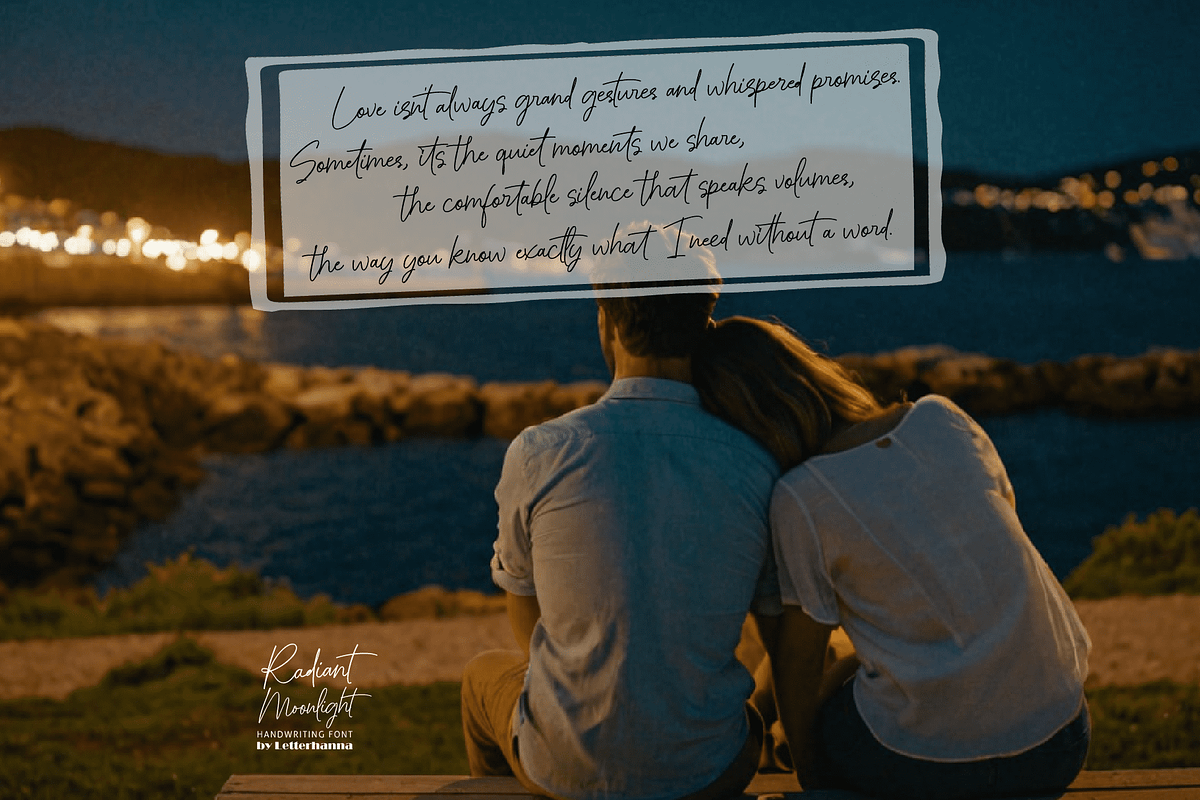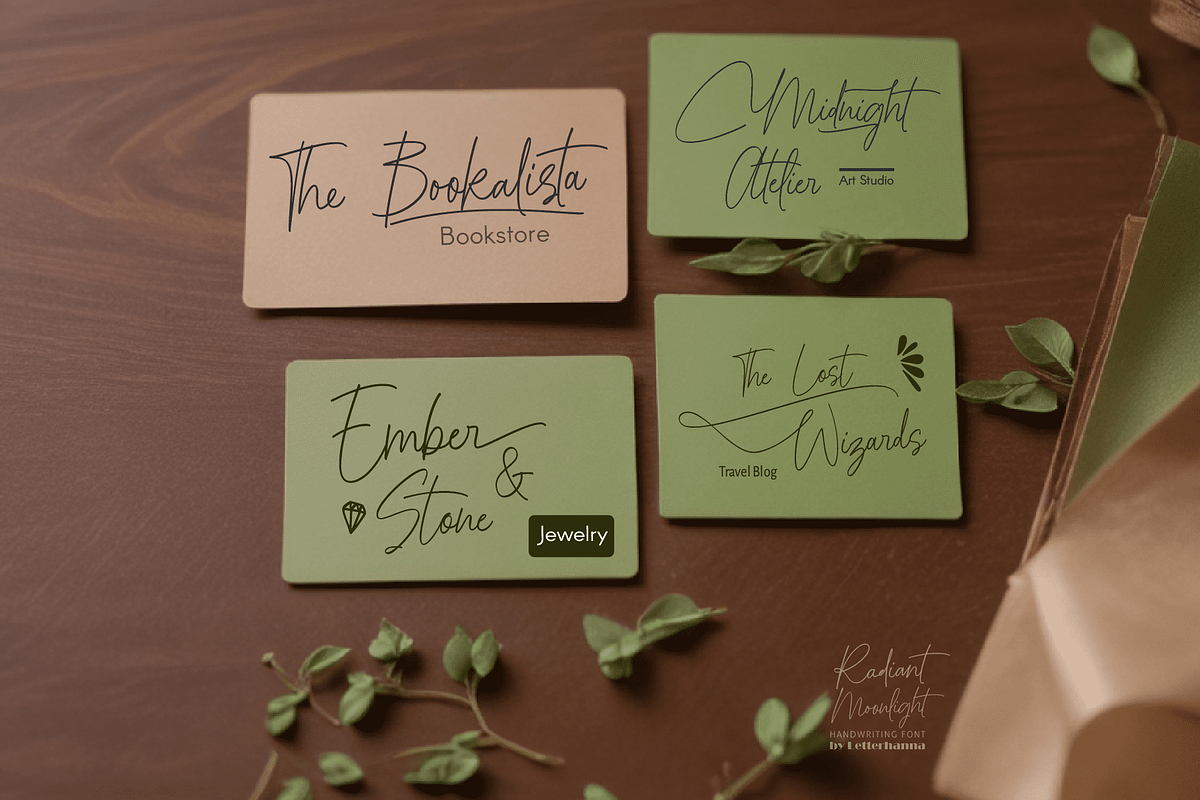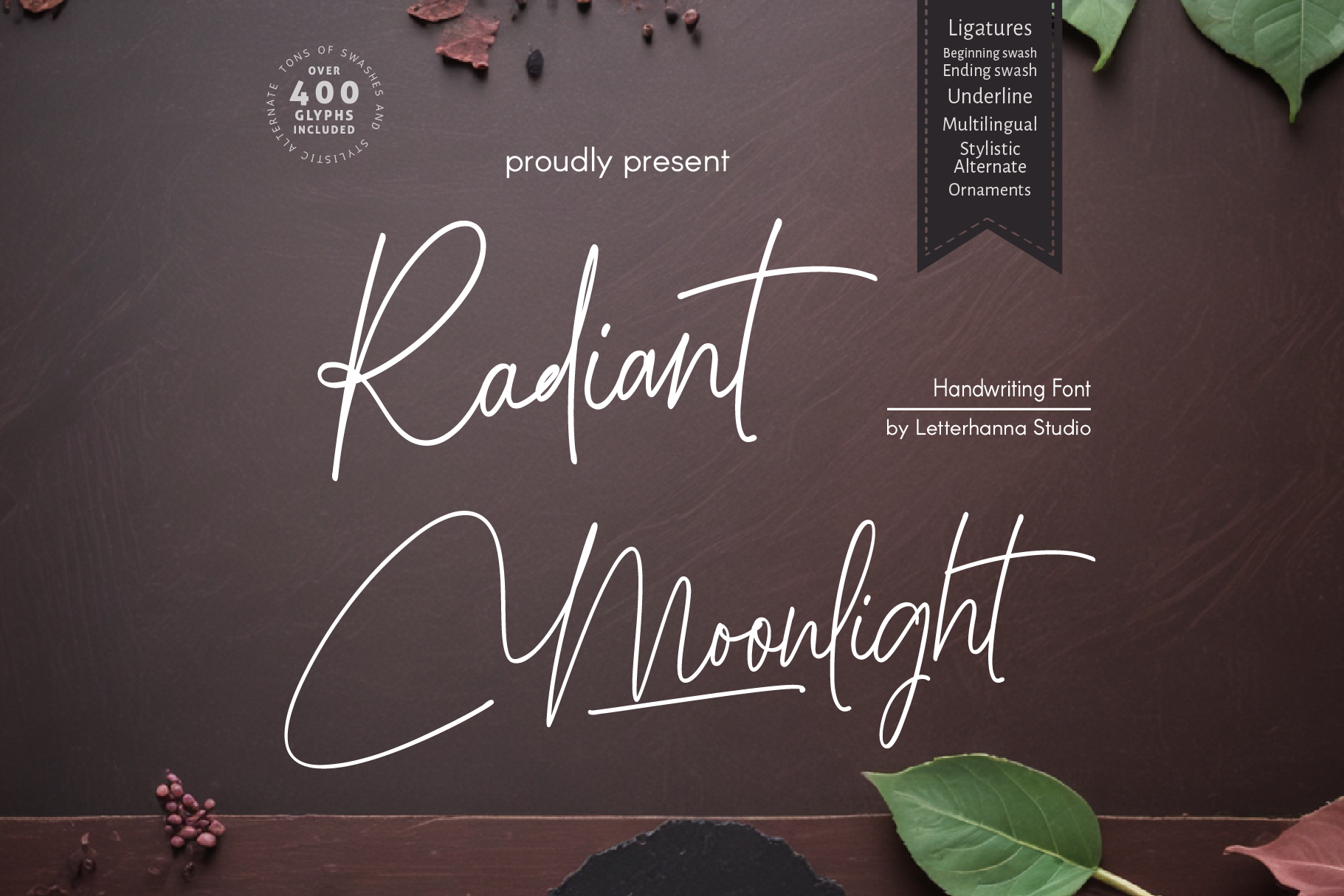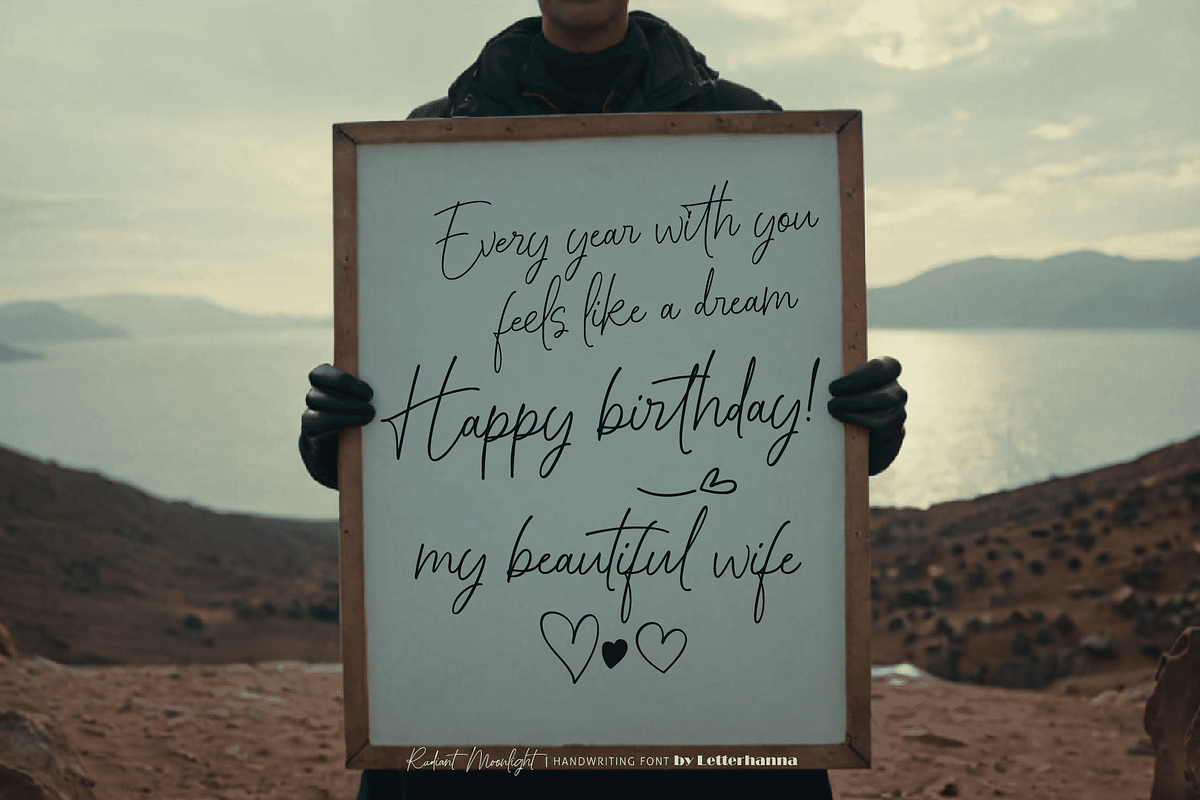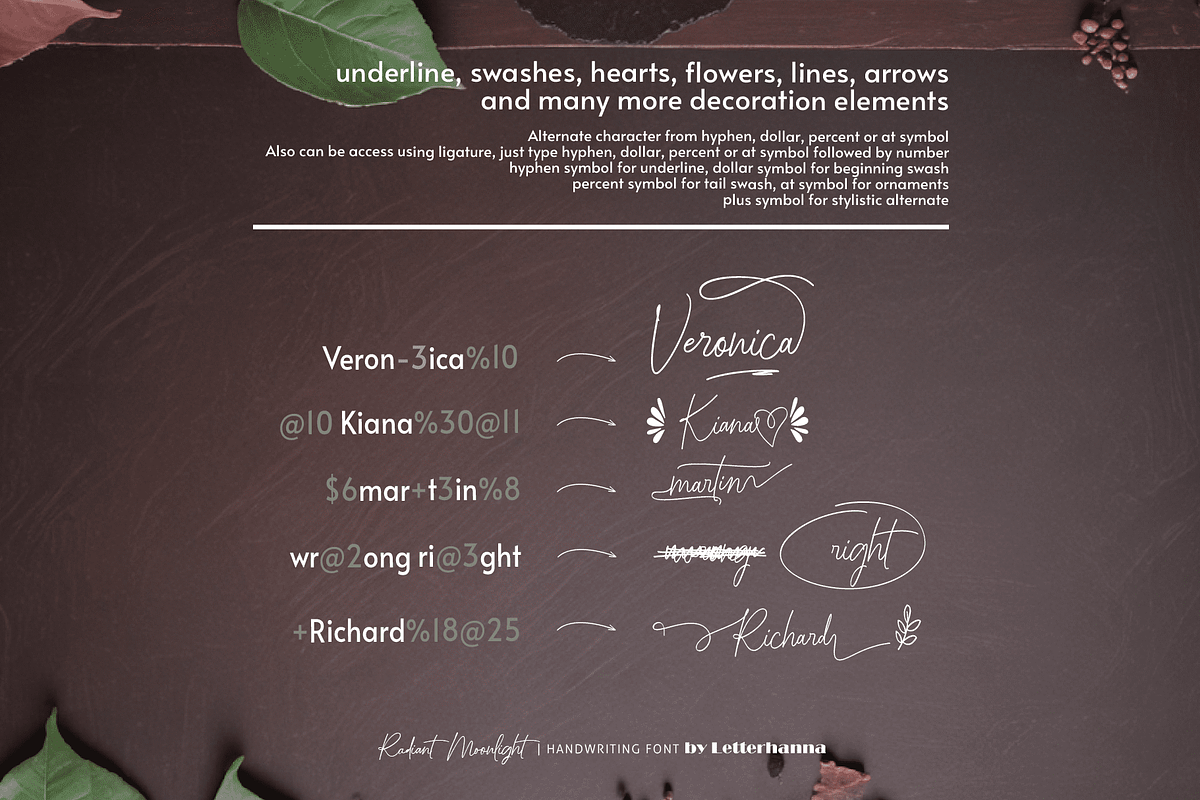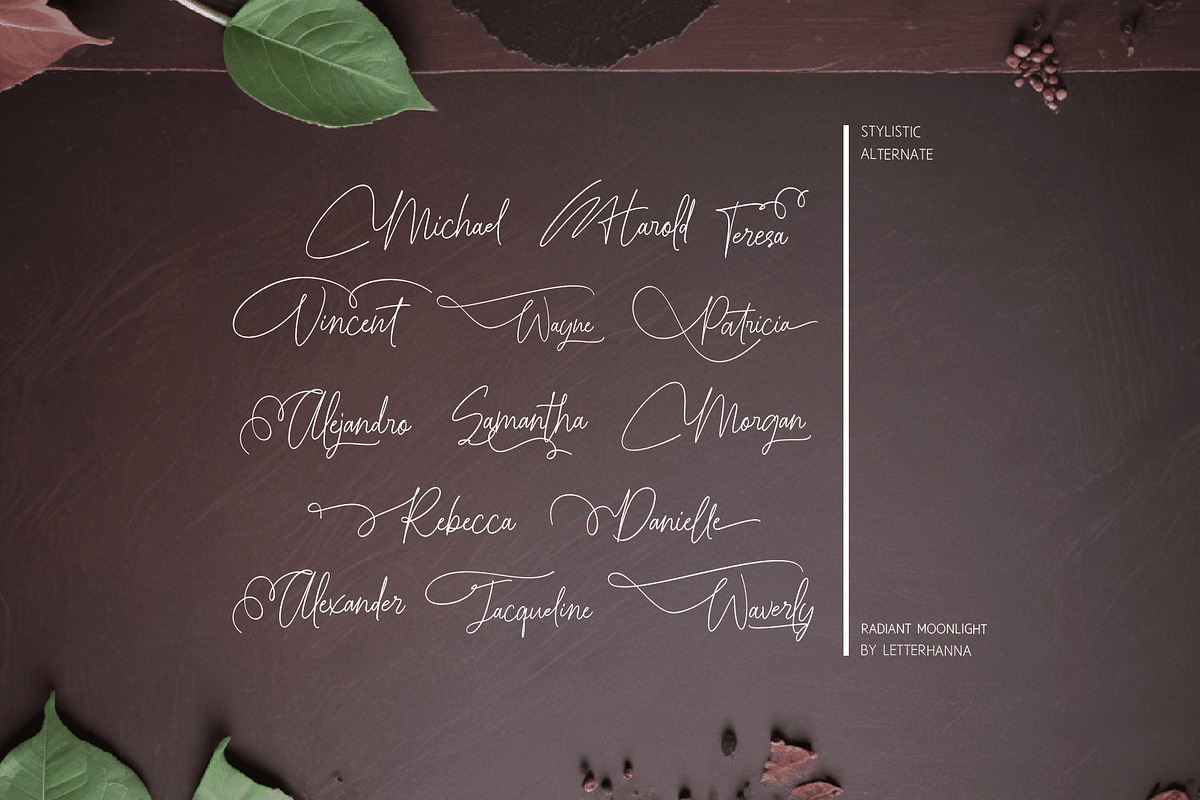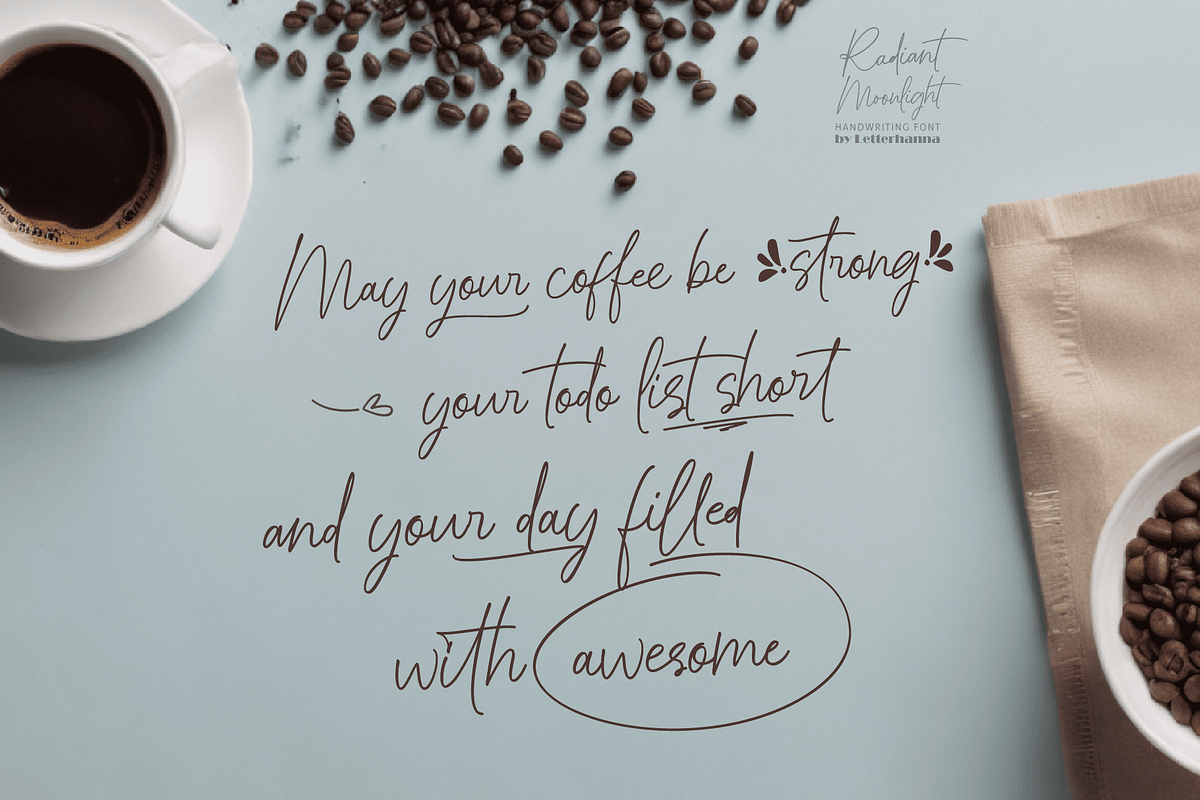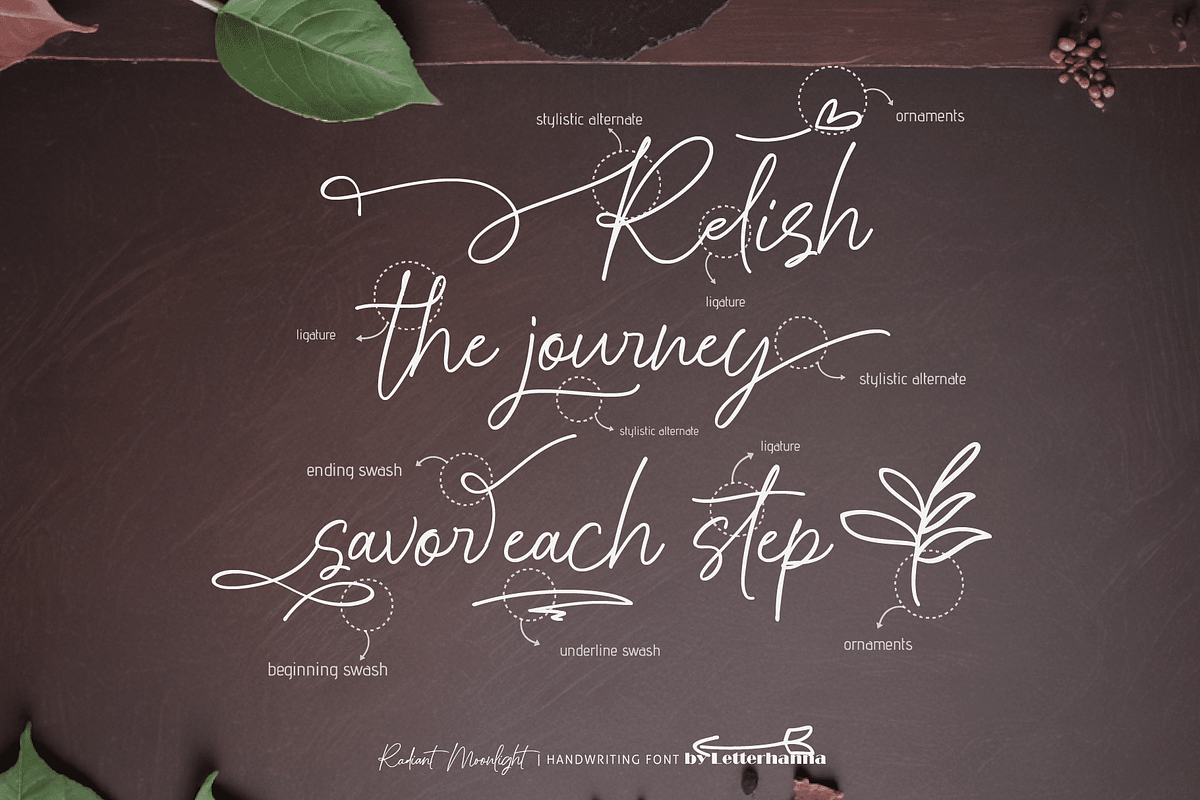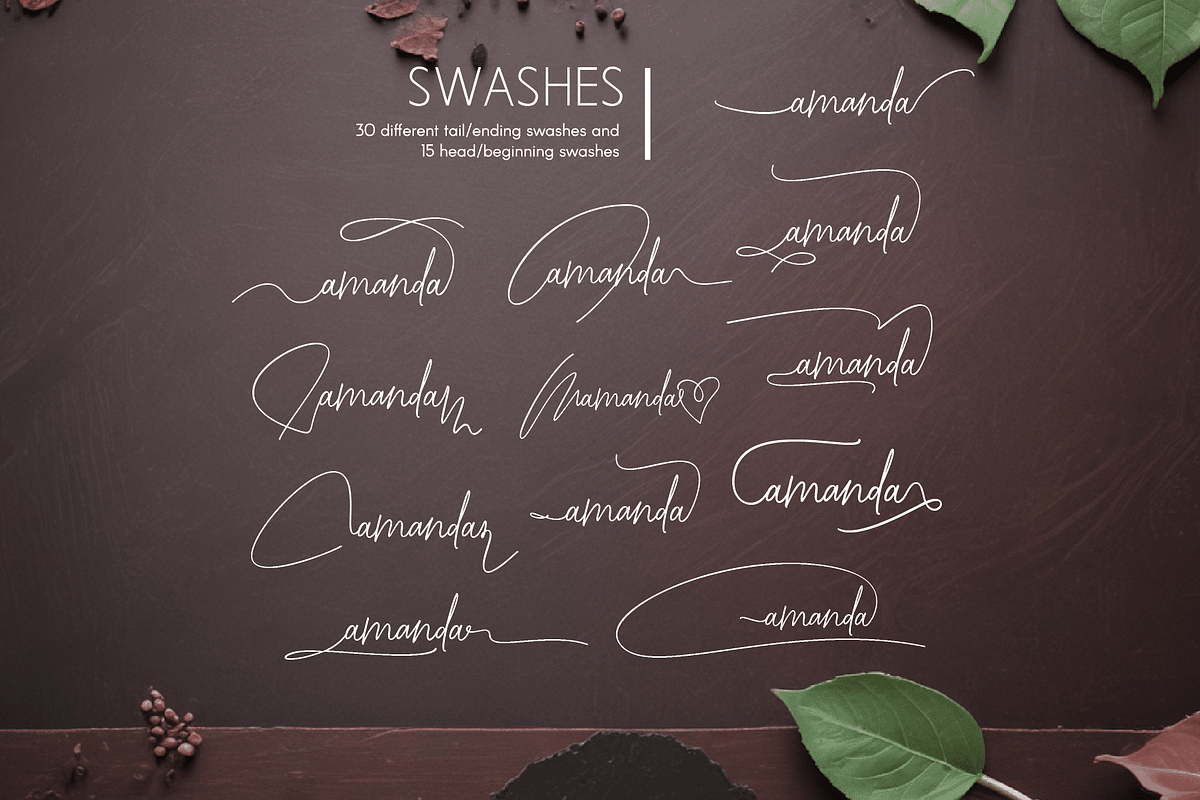
Radiant Moonlight Font
Introducing Radiant Moonlight: A Script Font for Dreamy Elegance
Embrace the magic of moonlit nights with Radiant Moonlight, a captivating new script font designed to weave elegance and wonder into your creative projects. Inspired by the delicate curves of calligraphy and the ethereal glow of moonlight, Radiant Moonlight offers a touch of luxury and sophistication to your words.
This versatile font is perfect for wedding invitations, stationery, logos, and branding materials that demand a touch of timeless beauty. With its effortless flow and undeniable charm, Radiant Moonlight will elevate your designs and leave a lasting impression. Let your creativity dance under the glow of Radiant Moonlight.
Easy Access to Glyphs and Swashes
Accessing Stylistic Alternates
Stylistic alternates can be accessed by typing a plus symbol "+" in front of the original letter. For example, type "+a" to get the stylistic alternate of the letter a.
Accessing Swashes and Ornaments
Underline Swashes: Use a hyphen symbol "-" followed by a number between 1 and 30. For example, type "-3", "-22", or "-17" to get various underline swashes.
Head/Beginning Swashes: Use a dollar sign "$" followed by a number between 1 and 9. For example, type "$2" or "$8" to get different head/beginning swashes.
Tail/Ending Swashes: Use a percent sign "%" followed by a number between 1 and 30. For example, type "%3" or "%15" to get various tail/ending swashes.
Ornaments: Use an "at" symbol "@" followed by a number between 1 and 26. For example, type "@4" or "@13" to get different ornaments.
PUA Encoding for Ease of Use. Radiant Moonlight Font is also PUA encoded, which means you can access all the glyphs and swashes with ease!
Uppercase and lowercase letters
Numbers and punctuation marks
Beginning and ending swashes
Underline swashes
Stylistic alternates
Ornaments
Easy access to swashes using ligatures